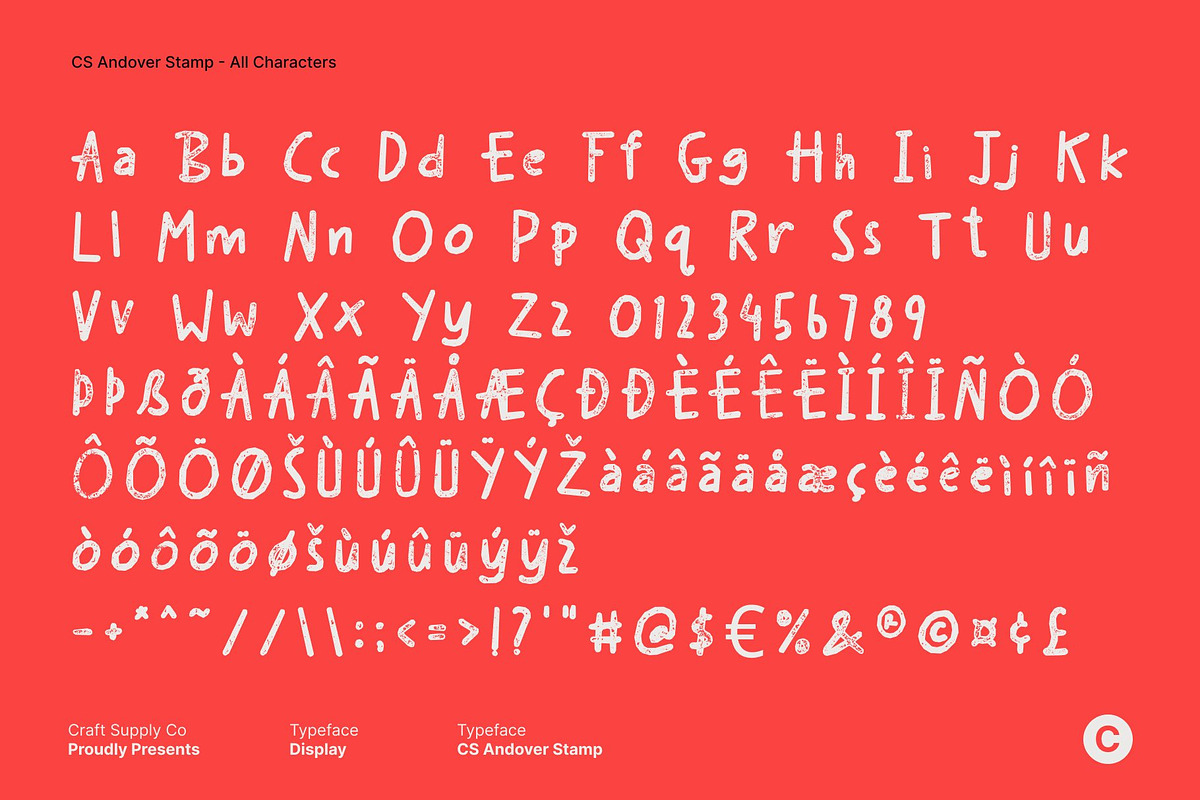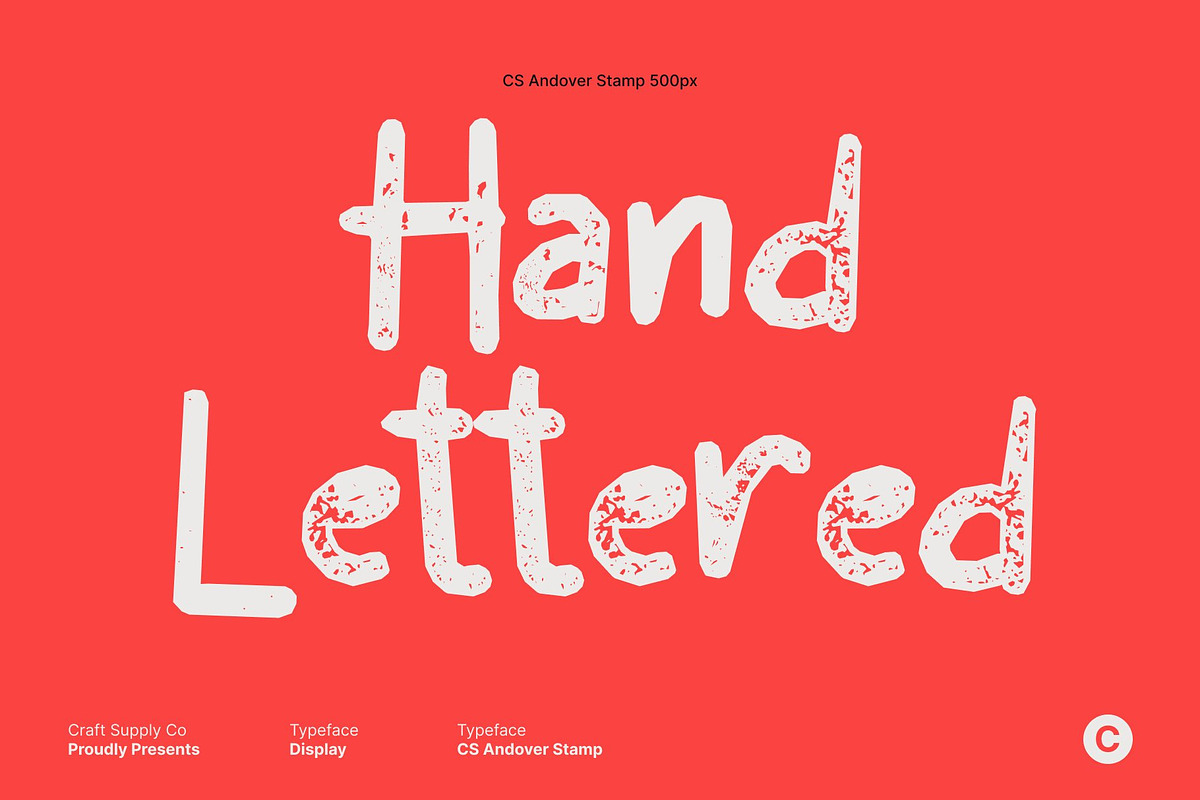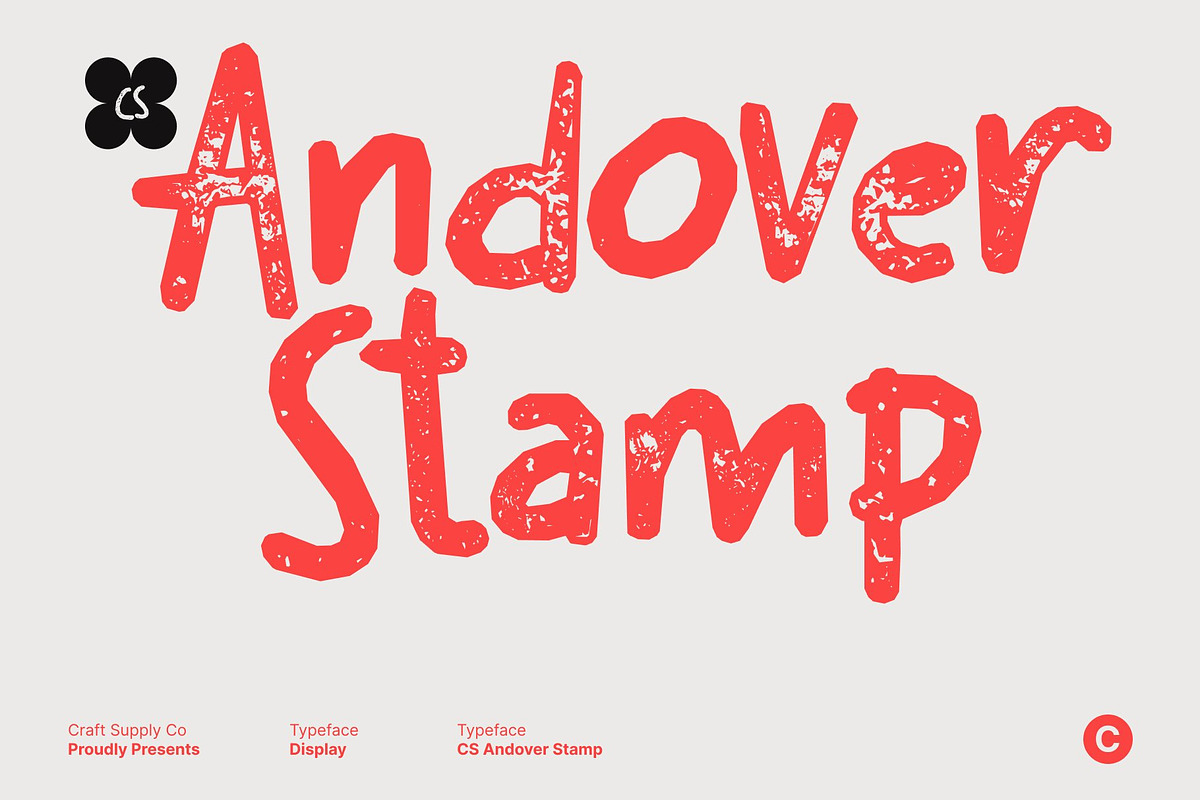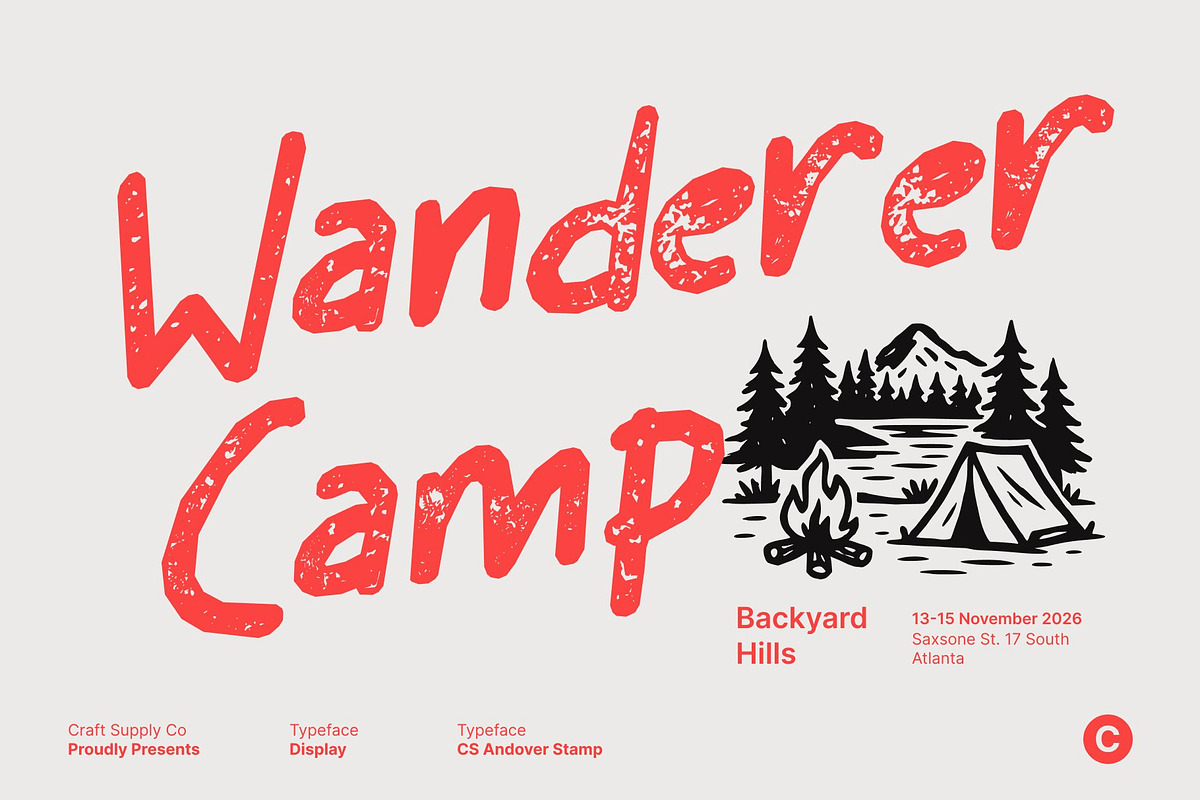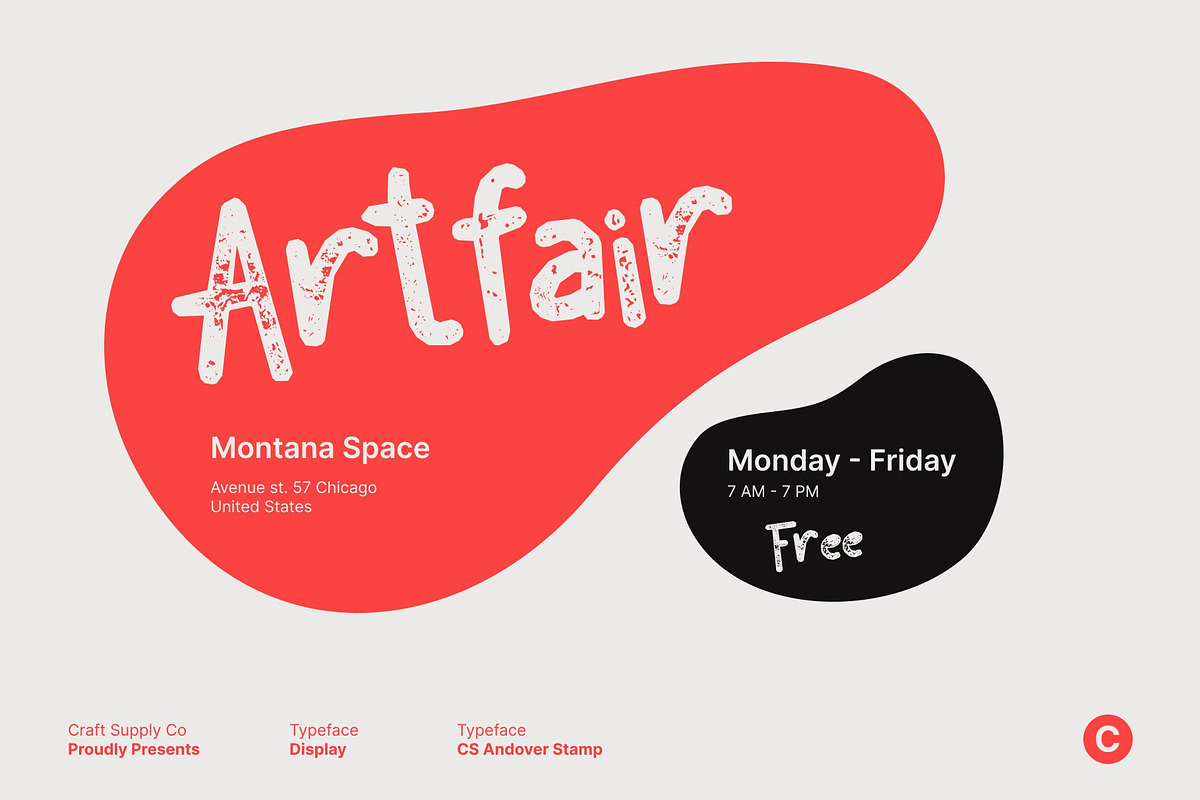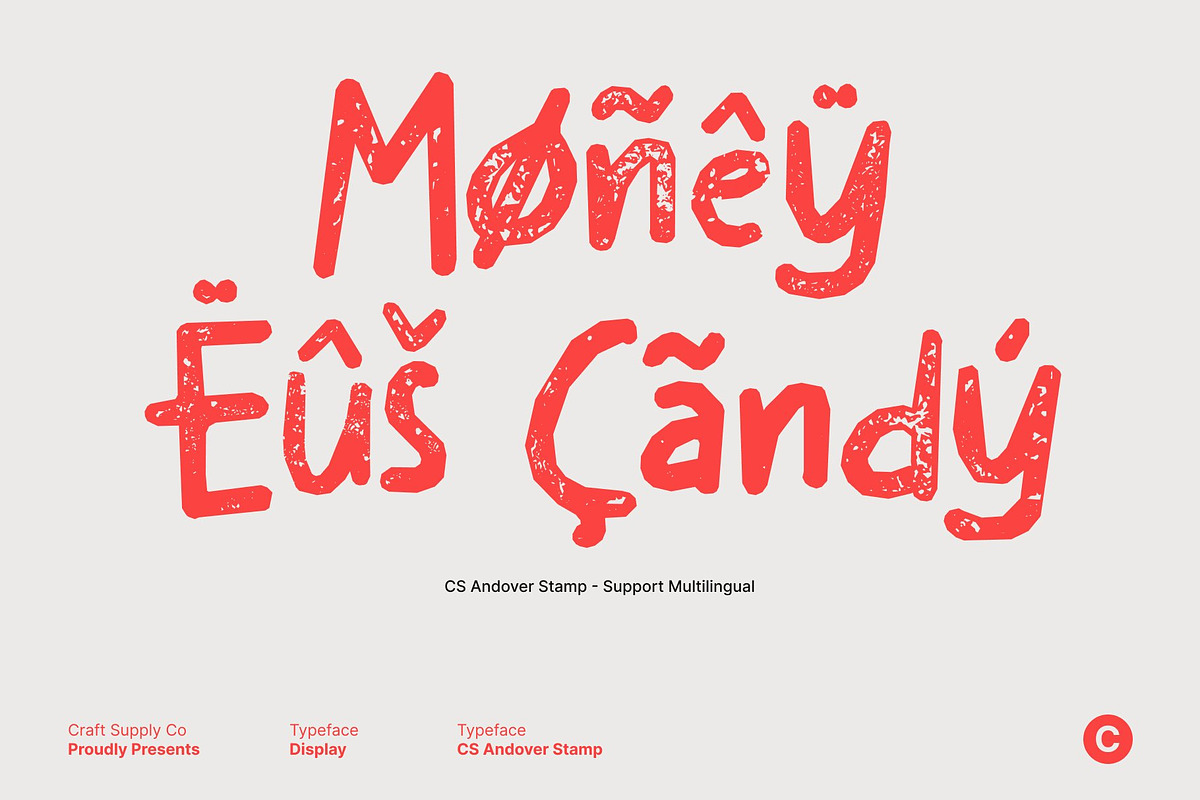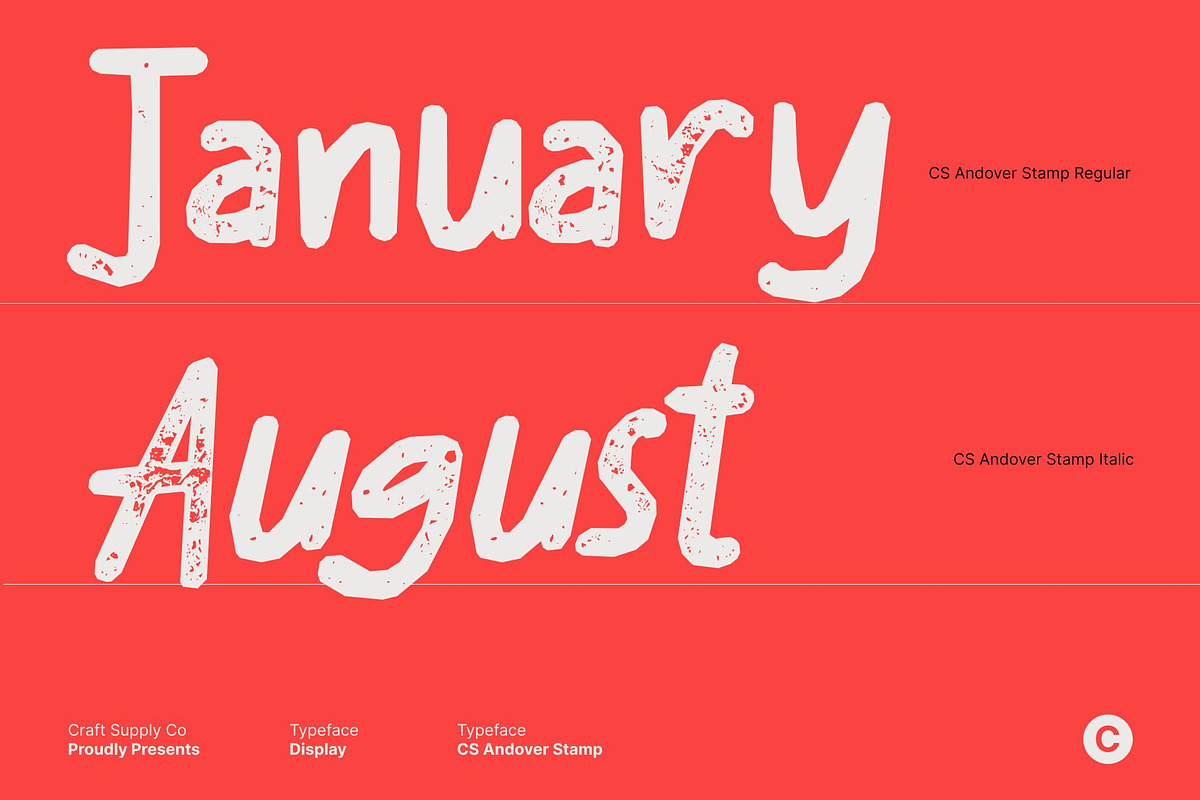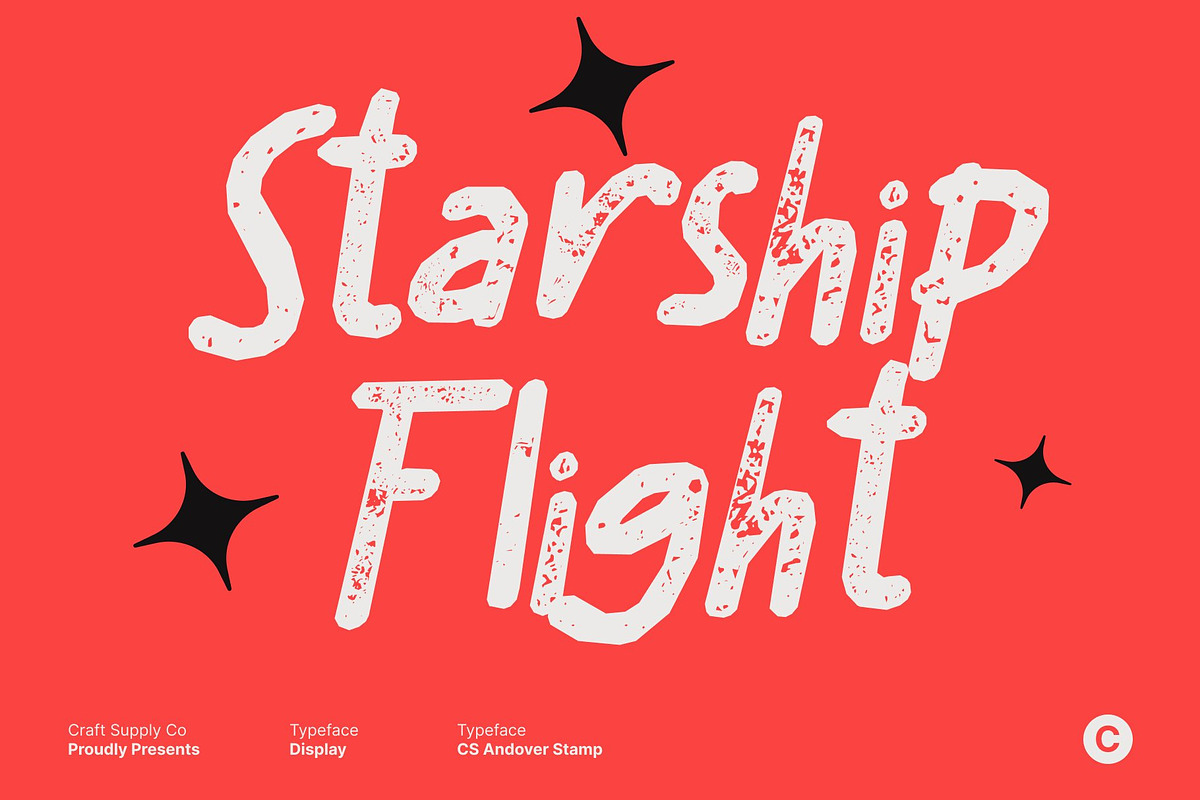
CS Andover Stamp
CS Andover Stamp – Playful Handwriting Full of Energy
Playful Handwritten Font with Friendly Vibes This is a fun and energetic playful handwritten font designed to bring joy and warmth to every design. Its rounded strokes and approachable letterforms create a friendly, casual look that feels instantly welcoming. Each character carries a lively personality, making this font perfect for projects that aim to appear youthful, vibrant, and engaging.
Rounded Strokes with a Textured Stamp Character The carefully crafted rounded forms give this font a soft and inviting presence, while the stamp effect adds subtle texture and organic imperfections. This stamped finish introduces a handcrafted, slightly worn appearance that enhances its charm, evoking the feel of playful rubber stamps or vintage handmade prints.
Energetic Style with Artistic Vintage Texture Radiating fun and movement, brings an energetic spirit to dynamic designs. The stamped texture enriches its handwritten flow, adding visual depth and a touch of retro character. This combination makes the font especially eye-catching for greeting cards, casual branding, lifestyle graphics, packaging, and social media content that need personality and warmth.
Perfect for Youthful, Casual, and Creative Projects From youth-focused branding and cheerful invitations to relaxed creative campaigns, this font delivers a lively and approachable tone. Its playful handwritten style paired with a textured stamp effect ensures every design feels personal, joyful, and full of positive energy leaving a lasting smile on every viewer.
CS Andover Stamp Regular
CS Andover Stamp Italic